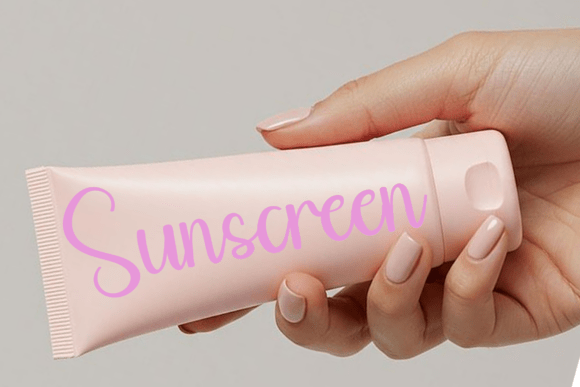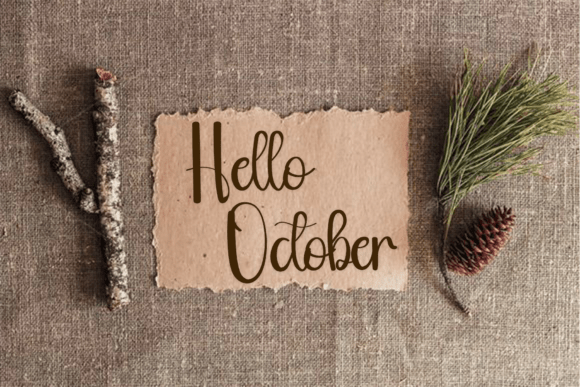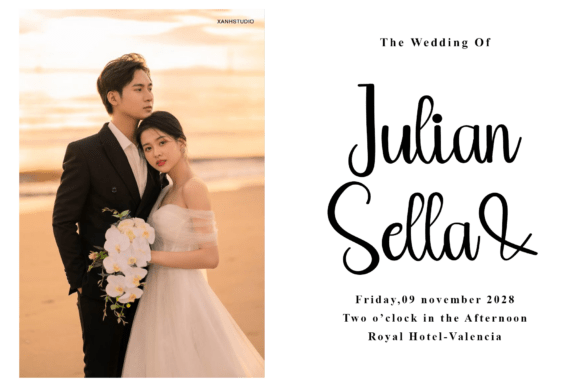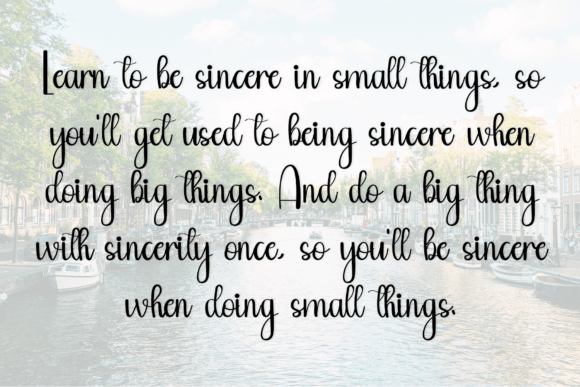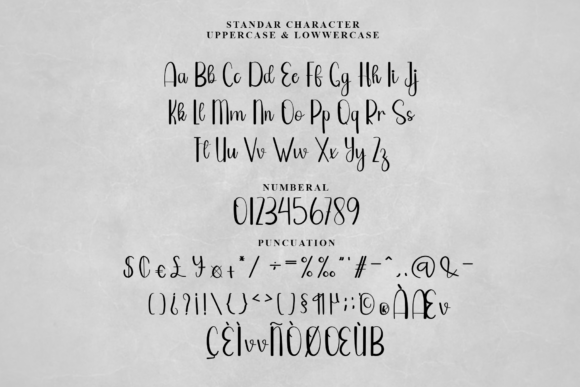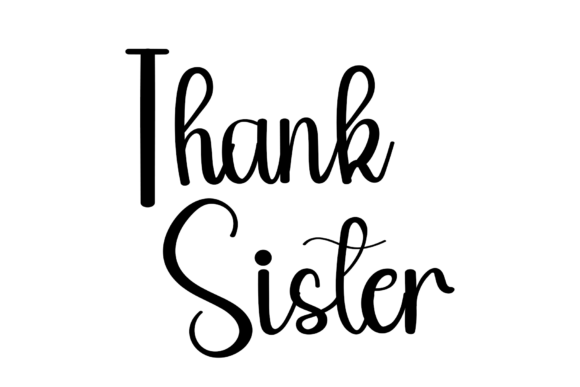
Introducing Autography Font: The Perfect Blend of Warmth and Personality
In the world of typography, fonts play a crucial role in conveying the tone and personality of a brand, design, or message. Among the numerous font styles available, Autography stands out as a casual handwritten font that exudes warmth, approachability, and charm. With its smooth strokes, natural curves, and effortless letterforms, Autography captures the essence of authentic handwriting with a modern twist.
The Characteristics of Autography Font
Autography font boasts a unique set of characteristics that make it an ideal choice for designers and crafters. Some of its notable features include:
- Smooth Strokes: Autography’s smooth strokes give it a fluid and natural look, reminiscent of handwritten text.
- Natural Curves: The font’s curves are organic and effortless, adding to its warm and inviting feel.
- Easy-Flowing Letterforms: Each letterform is designed to flow seamlessly into the next, creating a sense of continuity and harmony.
The Versatility of Autography Font
Autography’s versatility is one of its most significant advantages. This font can be used in a wide range of design applications, including:
- Quotes: Add a personal touch to inspirational quotes, making them perfect for social media posts, posters, or flyers.
- Invitations: Create warm and inviting invitations for special occasions, such as weddings, birthday parties, or baby showers.
- Branding: Use Autography to develop a unique brand identity that resonates with your target audience.
- Social Media Posts: Elevate your social media content with Autography’s friendly and approachable tone.
The Benefits of Using Autography Font
Autography offers several benefits that make it an attractive choice for designers and crafters:
- Readability: Despite its casual nature, Autography remains highly readable, even at smaller font sizes.
- Charm: The font’s unique character and personality add a touch of warmth and friendliness to any design.
- Effortless Style: Autography’s smooth strokes and natural curves create an effortless style that’s perfect for designs that require a personal touch.
Tips for Using Autography Font Effectively
To get the most out of Autography, consider the following tips:
- Pair with Other Fonts: Combine Autography with other fonts to create a unique and visually appealing typography.
- Experiment with Colors: Try out different color schemes to find the perfect match for your design.
- Use it for Headings and Body Text: Autography works well for both headings and body text, making it a versatile choice for designs that require a personal touch.
Autography font is a valuable addition to any designer’s toolkit. Its unique blend of warmth, personality, and versatility makes it an ideal choice for a wide range of design applications. Whether you’re a seasoned designer or a crafty DIY enthusiast, Autography is sure to become a favorite font in your collection.